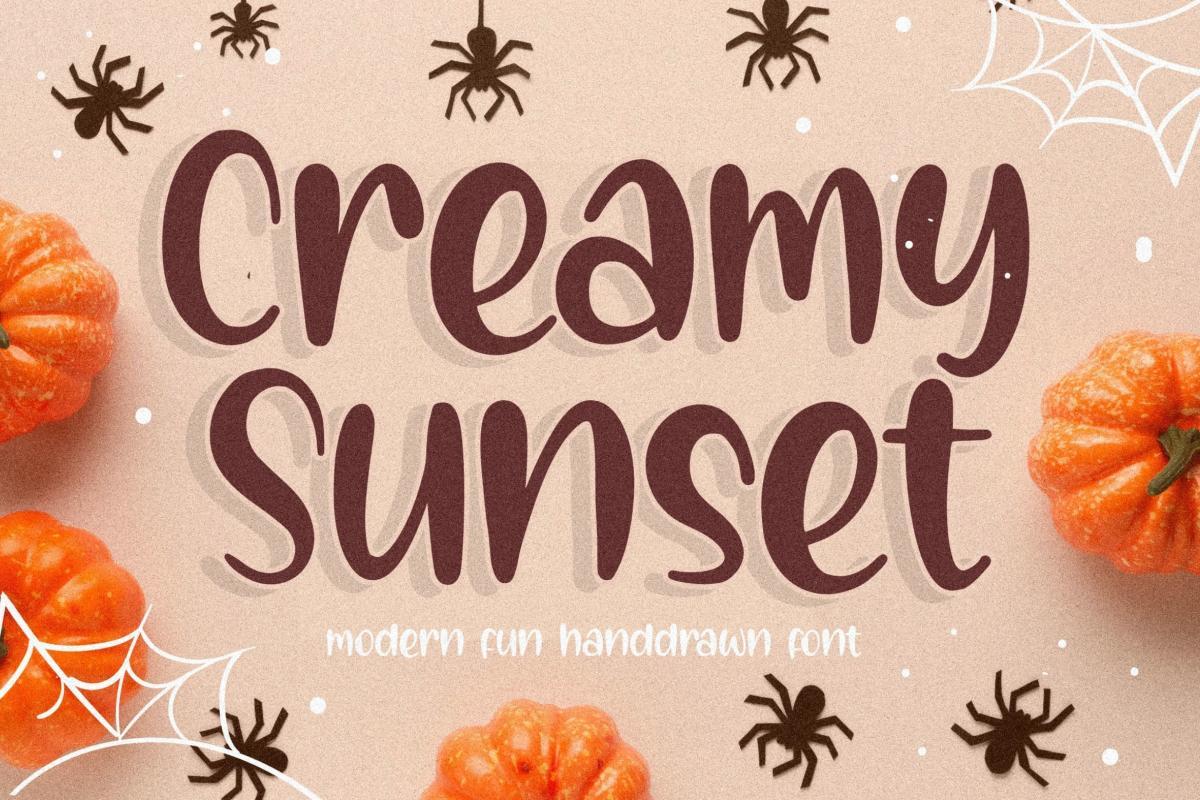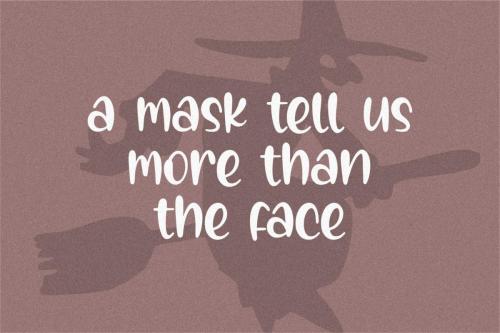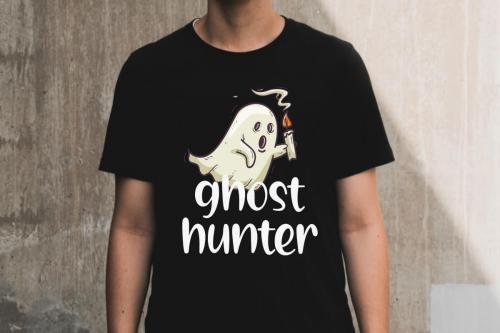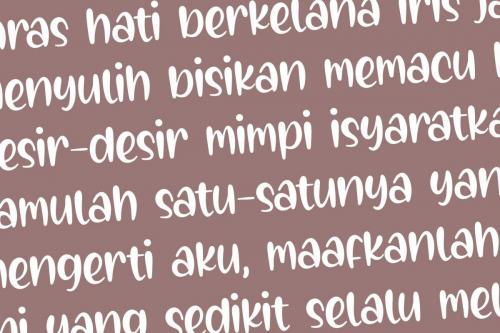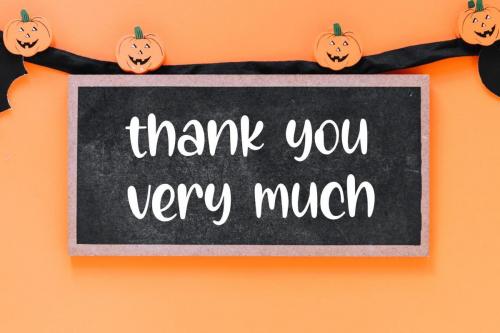
Creamy Sunset is a flowing, round lettered handwritten font, described by an elegant touch. Fall in love with its incredibly distinct and timeless style and use it to create spectacular designs!
Creamy Sunset is perfect for product packaging, branding project, megazine, social media, wedding, or just used to express words above the background.